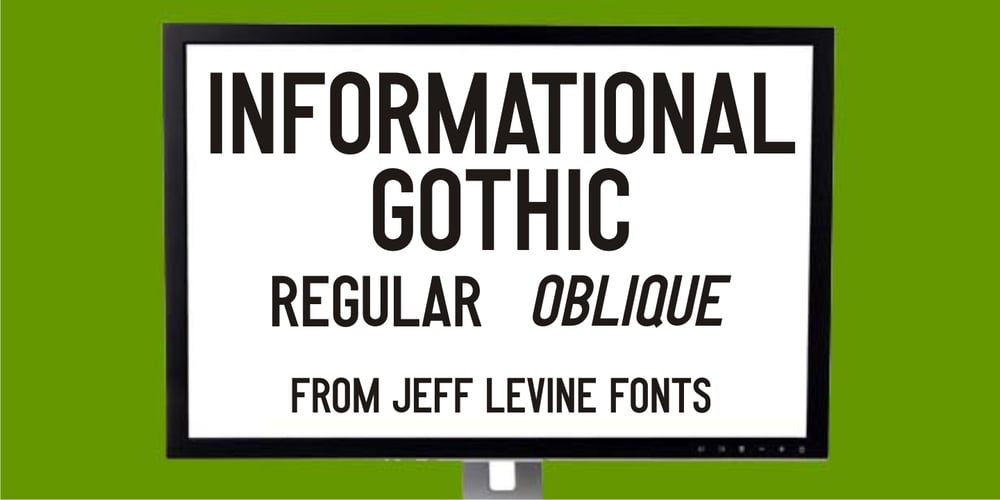
Informational Gothic JNL
Informational Gothic JNL font
Informational Gothic JNL Font Family was designed by Jeff Levine and published by Jeff Levine. Informational Gothic JNL contains 1 styles and family package options. The Wood-Regan Instruments Company (Wrico) of New Jersey manufactured for decades a line of lettering kits called the Wrico Sign Maker. With only special ink pens, plastic templates and a template guide anyone could letter clean, clear signs, posters and notices. Based on the same principles of architectural templates, the lettering was [for the most part] utilitarian and functional. Few templates were of stylized or decorative lettering. Informational Gothic JNL and its oblique version are based on the four inch high lettering templates from one of those kits.